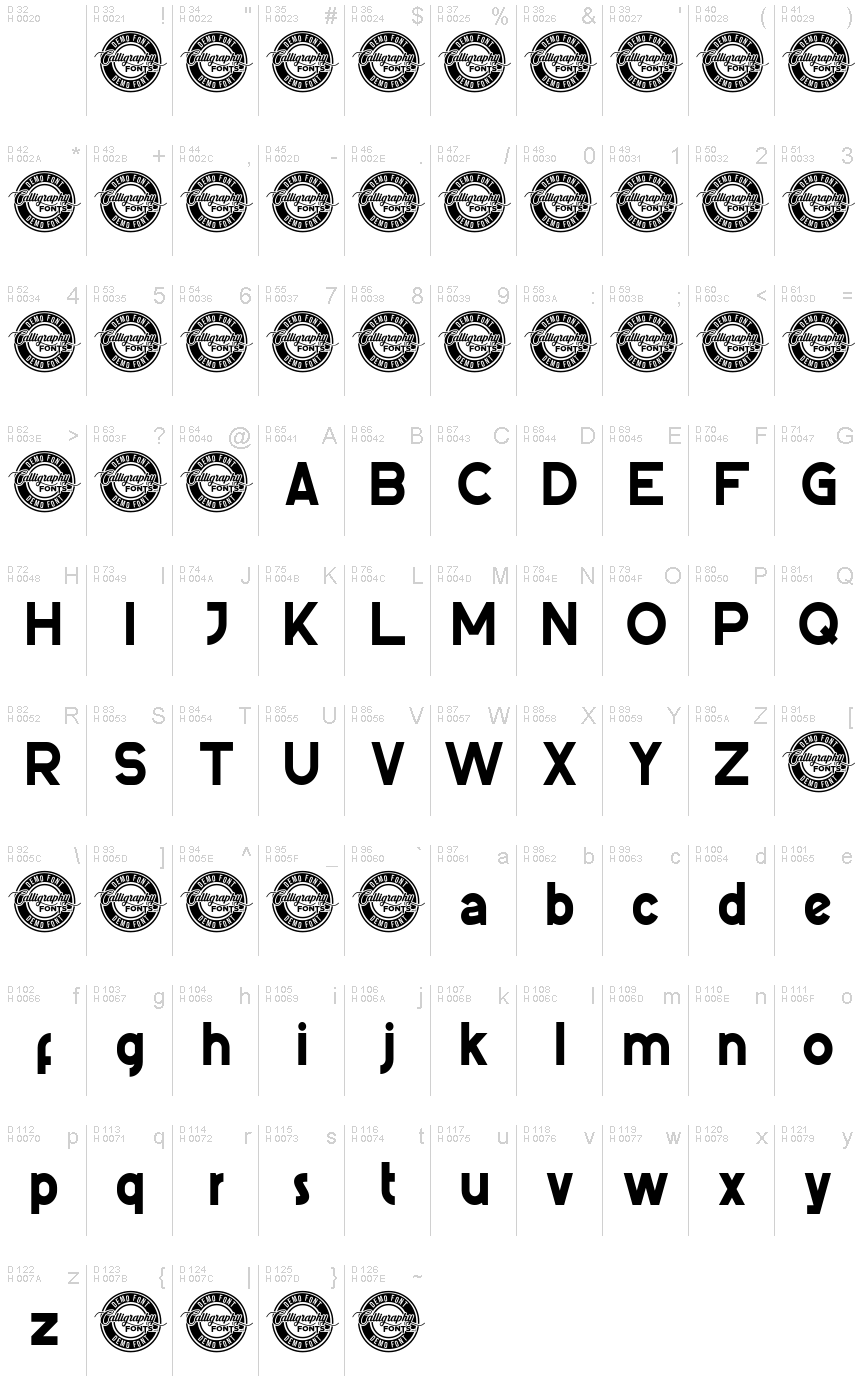
PictorialStyleDemo Compressed
Pictorial Style Compressed font, part of the Pictorial Style family by Calligraphy Fonts, is a dynamic sans serif typeface with striking condensed characteristics. Its sleek and slender form exudes modern sophistication, making it an ideal choice for projects that demand clarity and elegance. The font’s unique design is perfect for creating impactful headlines, innovative branding materials, and eye-catching digital content.